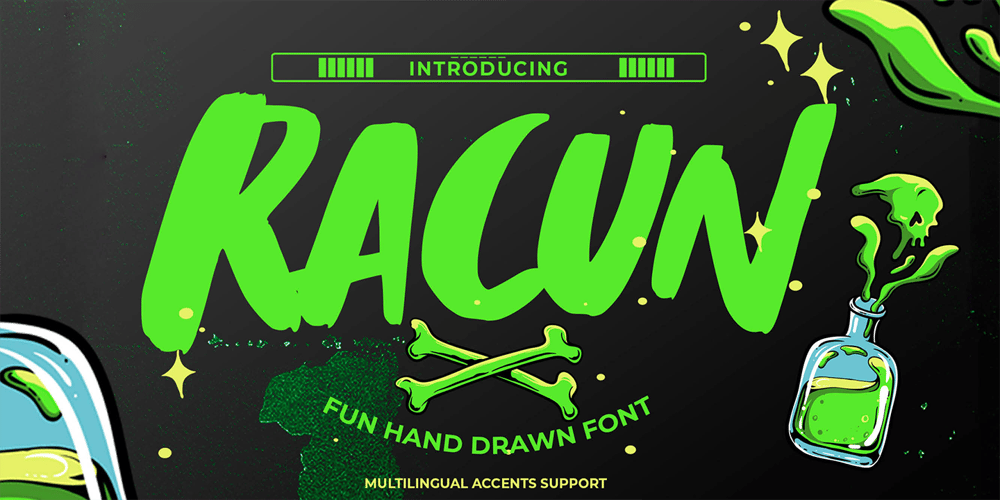
Racun Font Family was designed by Abdul Malik Wisnu, Anang Fibriyanto and published by Gassstype. Racun contains 1 styles and family package options. Here comes a New font, Introducing RACUN It’s Fun Hand Drawn Font is a Natural Style and Authentic classy style, this font is great for your creative projects such as watermark on photography, and perfect for logos & branding, invitation,advertisements,product designs, special events or anything that need handwritting taste.RACUN is a Hand Drawn feel It is perfect for any design project as Invitation,logo, book cover, craft or any design purposes,photos, photography overlays, signs, window art, scrapbooking, tags and so much more!It is perfect for any design project as Invitation,logo, book cover, craft or any design purposes.It also features a wealth of special features including You can activate 15 Ligatures and 16 Alternates OpenType panel.